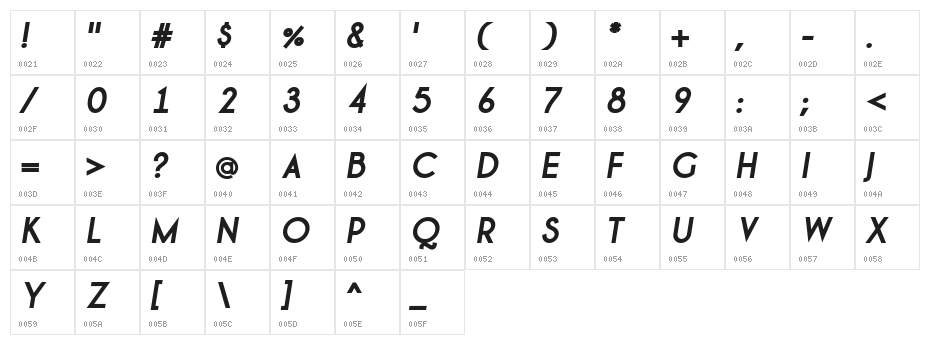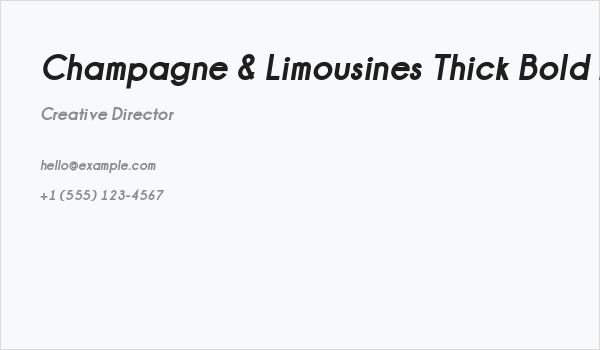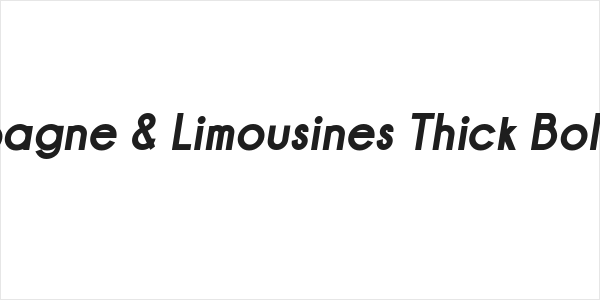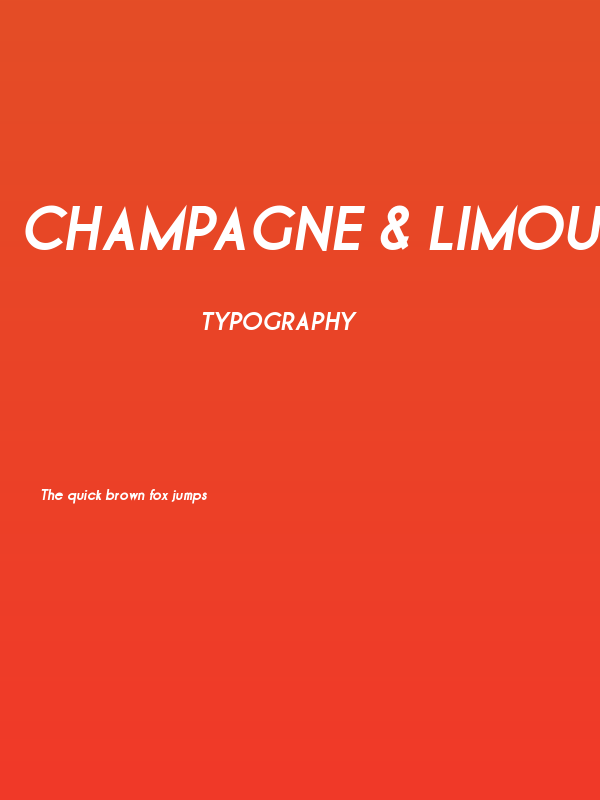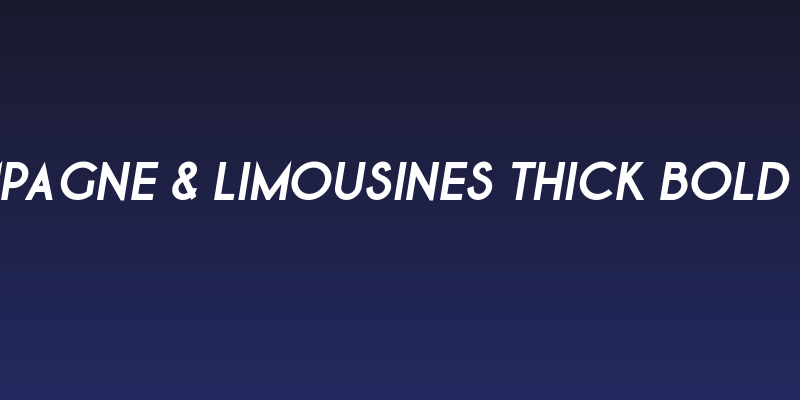
Champagne & Limousines Thick Bold Italic Font
Champagne & Limousines Thick Bold Italic Description
This font features a bold and italic style, characterized by its thick strokes and dynamic slant. The uppercase letters are strong and assertive, while the lowercase letters maintain a consistent flow, enhancing readability. Numbers are clear and well-proportioned, making them suitable for various applications. Special characters are distinct and well-integrated, providing versatility for different design needs. The overall appearance is modern and stylish, suitable for making a strong visual impact.
| Proposed Projects | Ideal for branding, headlines, posters, and advertising materials where a bold statement is needed. |